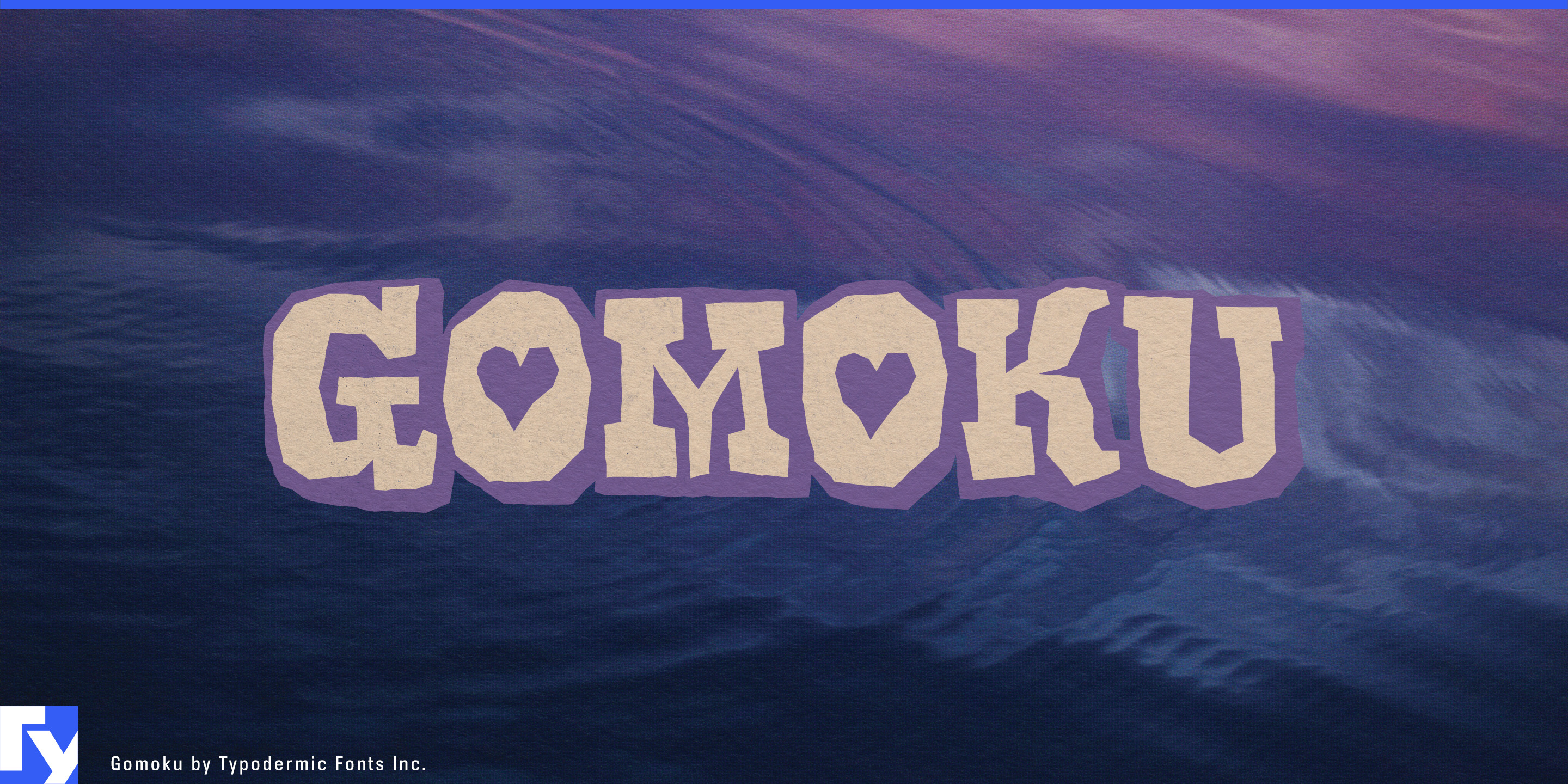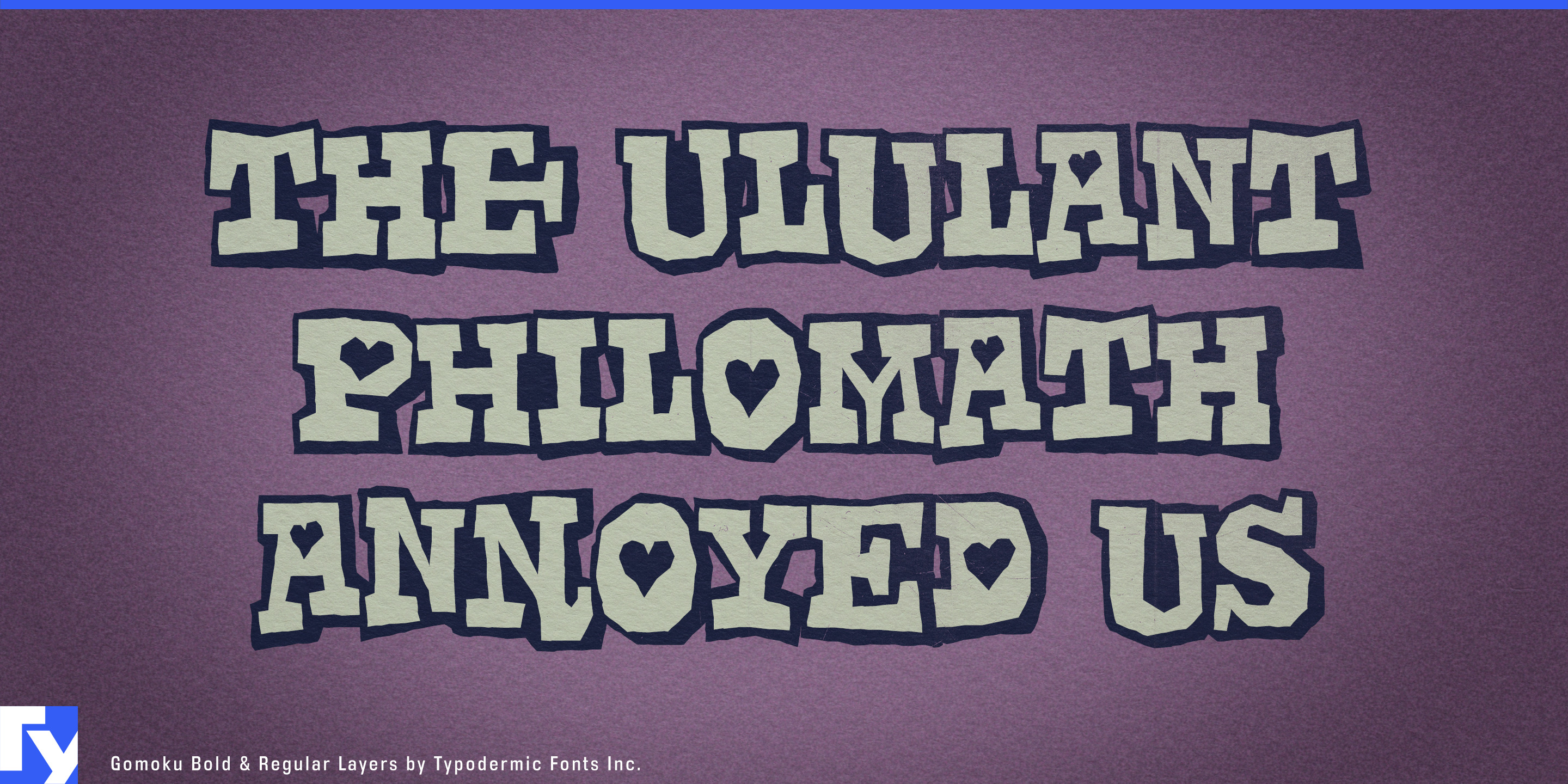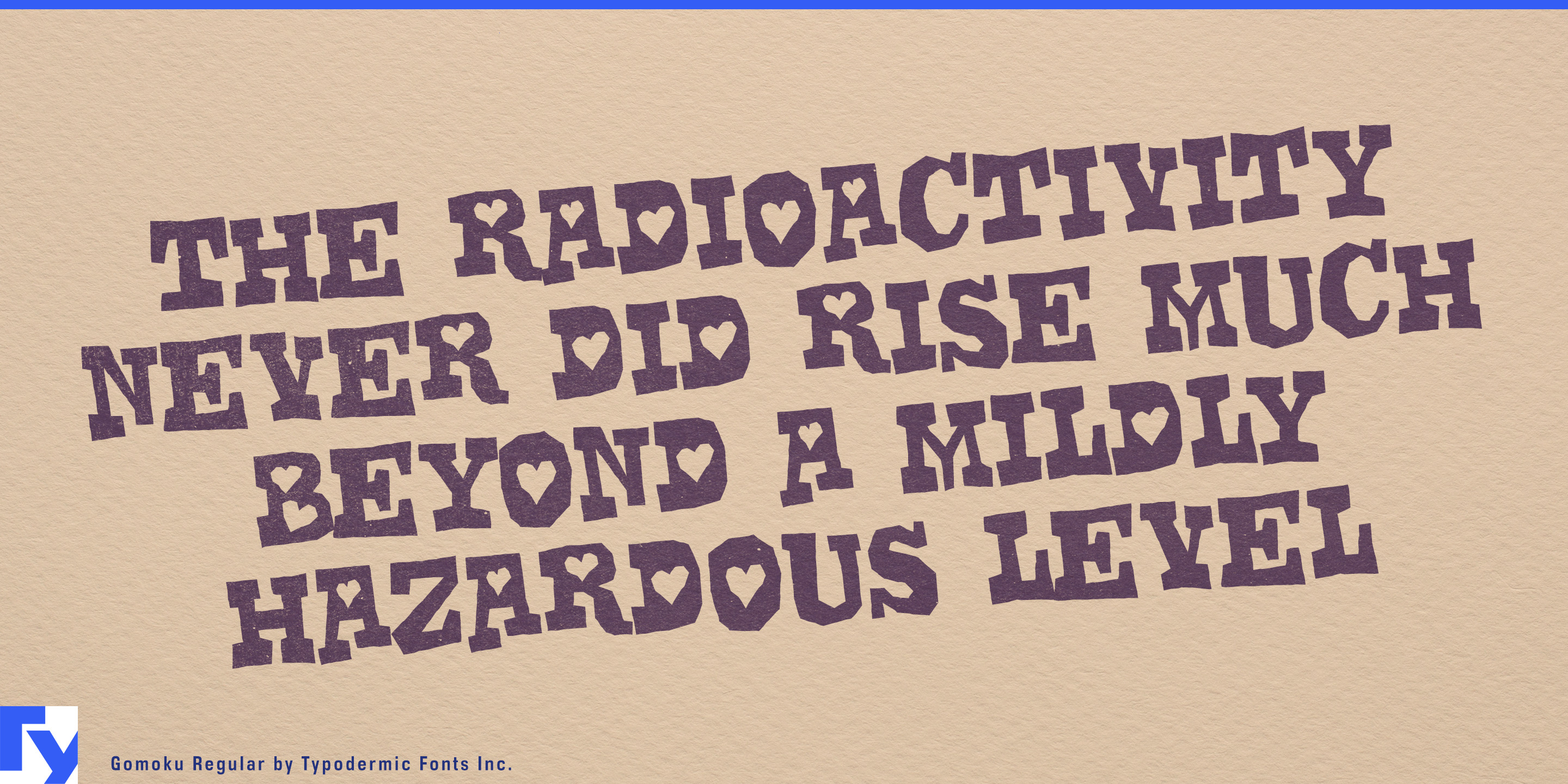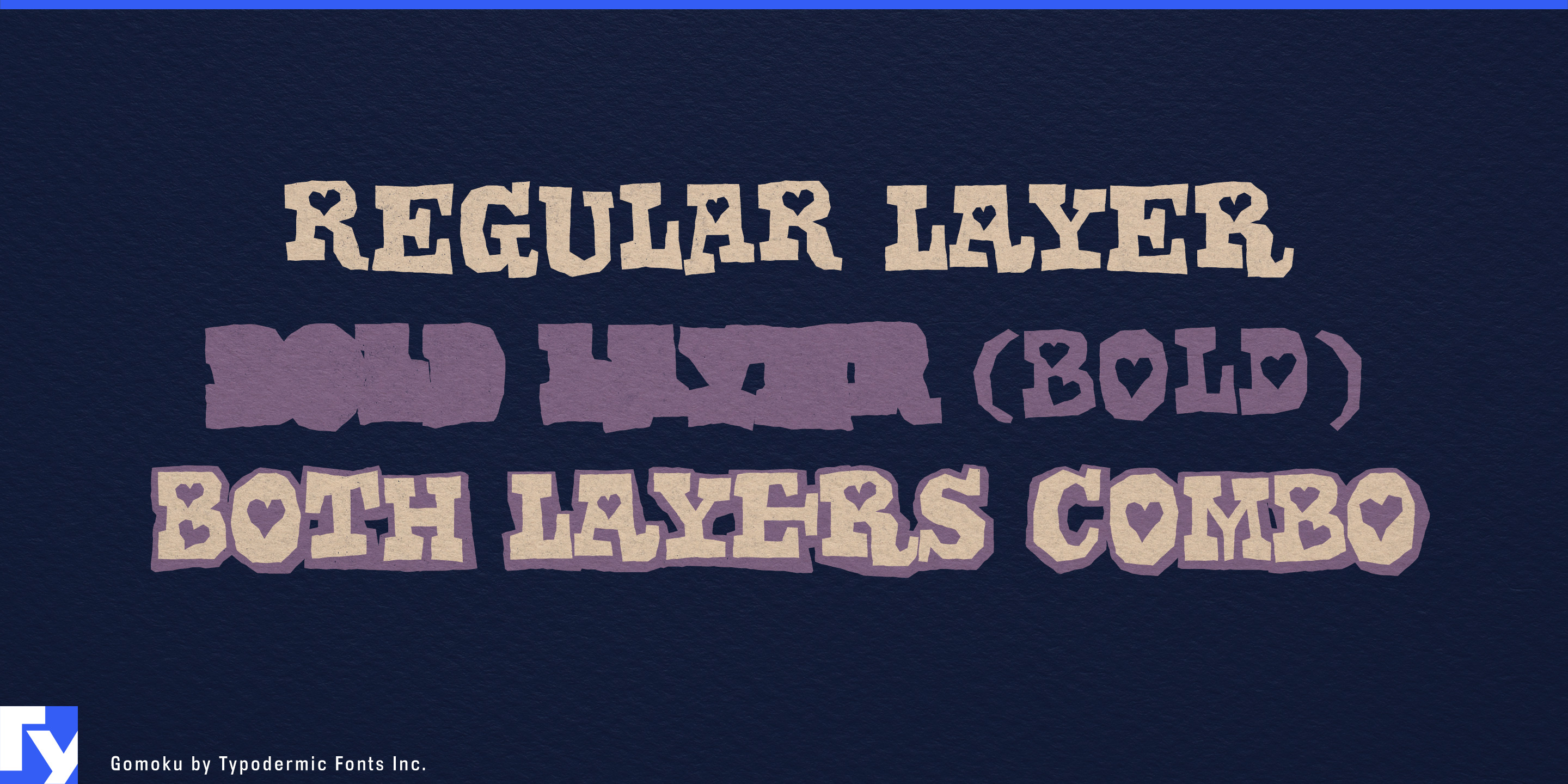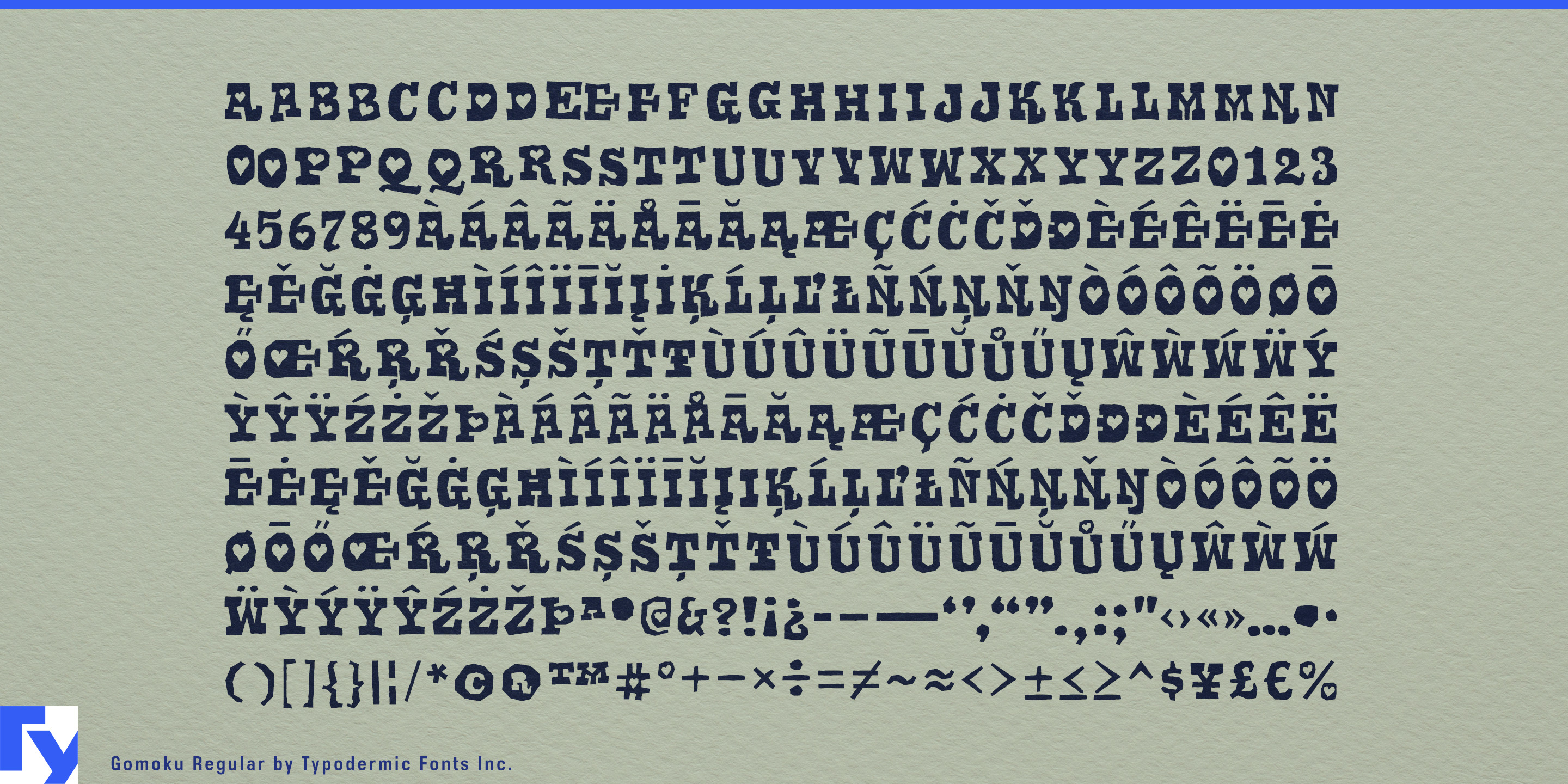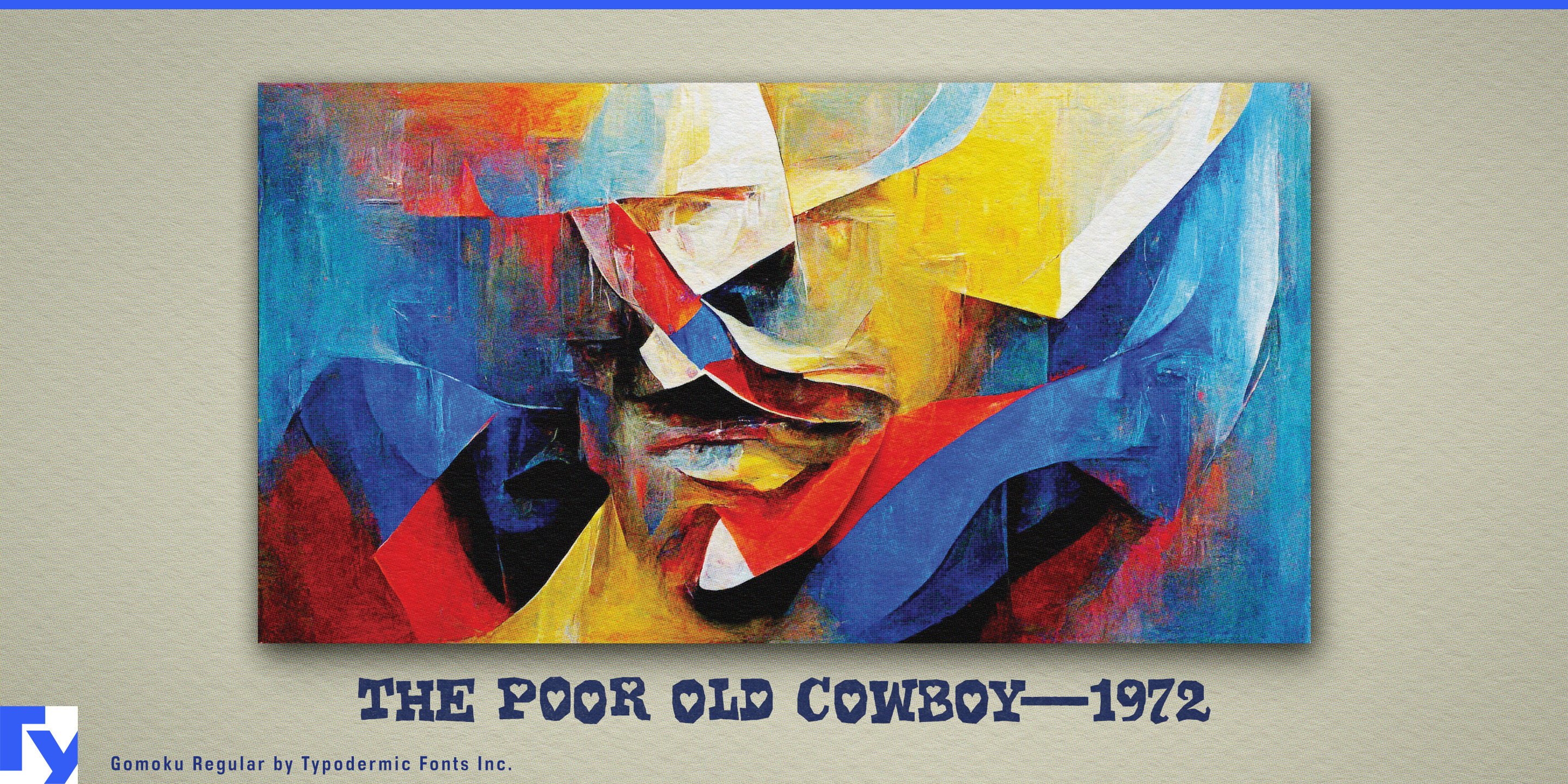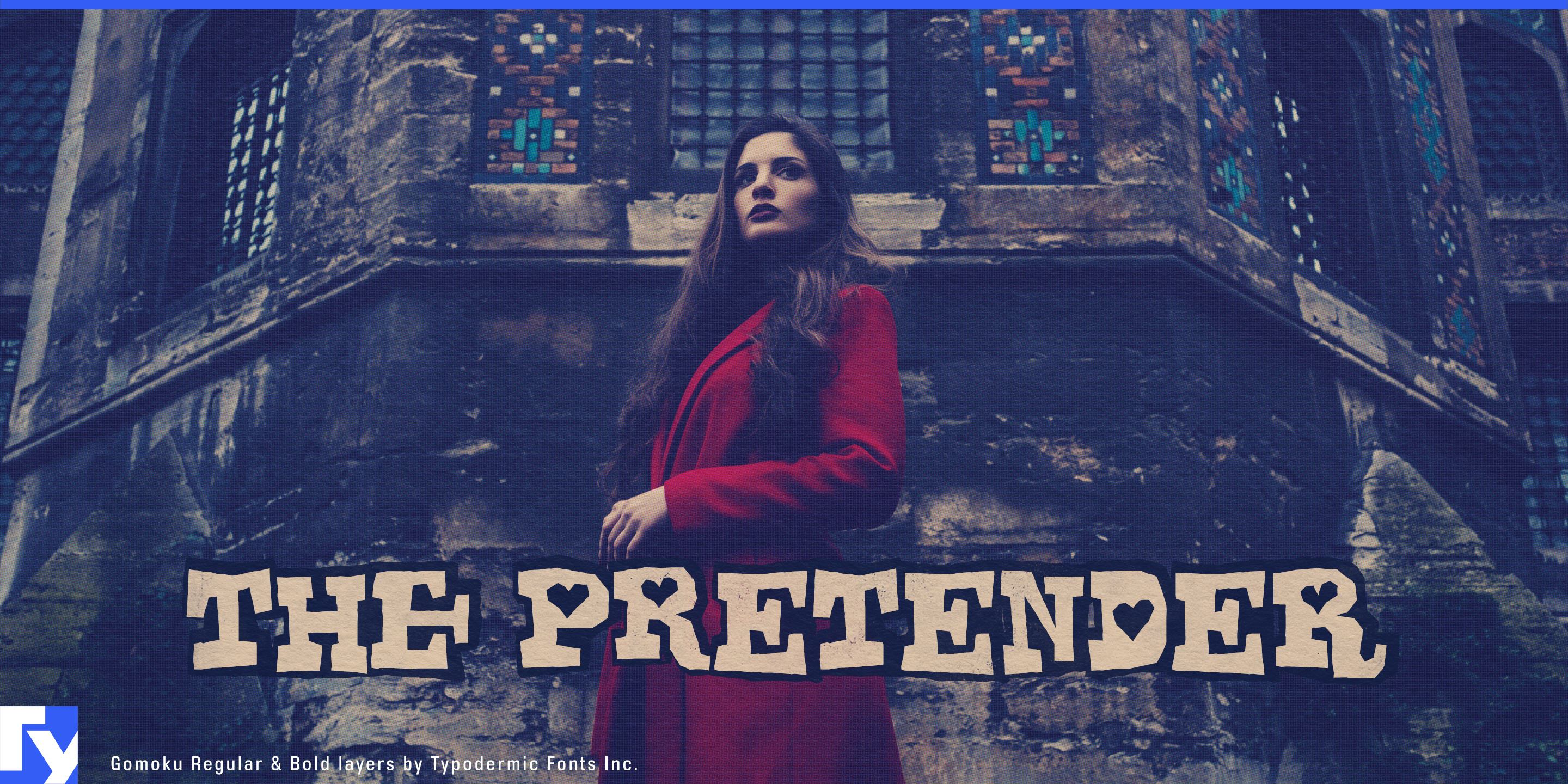
Gomoku
Gomoku looks like lettering cut from thick coloured paper and stacked on the table. Its chunky slab serifs, soft corners, irregular contours, and slightly clumsy joins give each letter the solidity of a small object rather than the smooth finish of conventional display type. A separate background layer can sit behind the main letterforms, turning that cut-paper construction into a two-colour graphic system.
That makes Gomoku particularly comfortable around food made to look fun. Candy bags, gummy sweets, cereal boxes, ice-cream tubs, popsicle wrappers, frosted cookies, doughnut boxes, popcorn, flavoured milk, and birthday-cake kits can use its heavy shapes almost as part of the illustration. Foreground and background colours can change with flavour or variety, letting the lettering participate in the same bright visual language as the food itself.
Family-oriented restaurants and snack shops offer the same setting. Ice-cream counters, doughnut shops, pancake restaurants, pizza places, dessert cafés, and kids’ menus can use Gomoku for names, flavours, specials, and signs that need to be noticed quickly. It belongs more naturally with sprinkles, toppings, paper cups, and party tables than with carefully distressed artisan packaging.
The cut-paper quality also gives it a strong life away from food. Children’s craft kits, sticker packs, classroom art supplies, birthday invitations, party banners, summer-camp activities, museum workshops, and school-fair graphics can treat the letters like pieces of collage. Contrasting layers can resemble stacked cardstock or stickers, while a one-colour setting keeps the same chunky silhouette when the surrounding artwork is already busy.
Gomoku can also lean into its sweeter side for Valentine candy, chocolate treats, bakery specials, and party favours. The affectionate details are already built into the letterforms, so the mood does not have to be added afterward.
This all-caps display face is built for concentrated jobs: product names, flavour names, package headings, signs, invitations, and short slogans. Gomoku works best where words are allowed to have thickness, colour, and a little awkwardness of their own; somewhere between a candy wrapper and the construction-paper table.